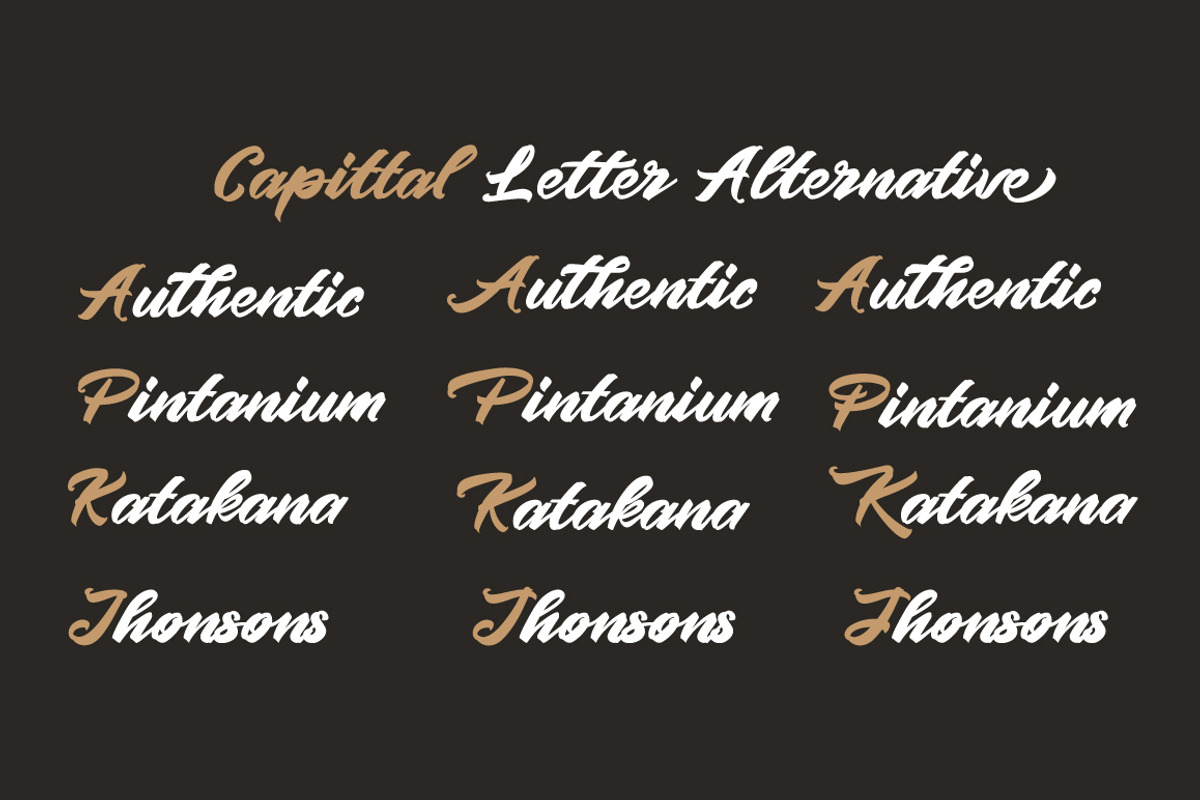
Pintenium Script
Pintenium Script is Vintage Script Brush Font with Handlettering Brush Style, so much opentype feature include of the font. Suitable for design, element design, wedding, event, t-shirt, logo, badges, sticker, and awesome work, etc...
Feauture Of The Font:
Open Type Features Fonts
Unique style fonts
Easy customize